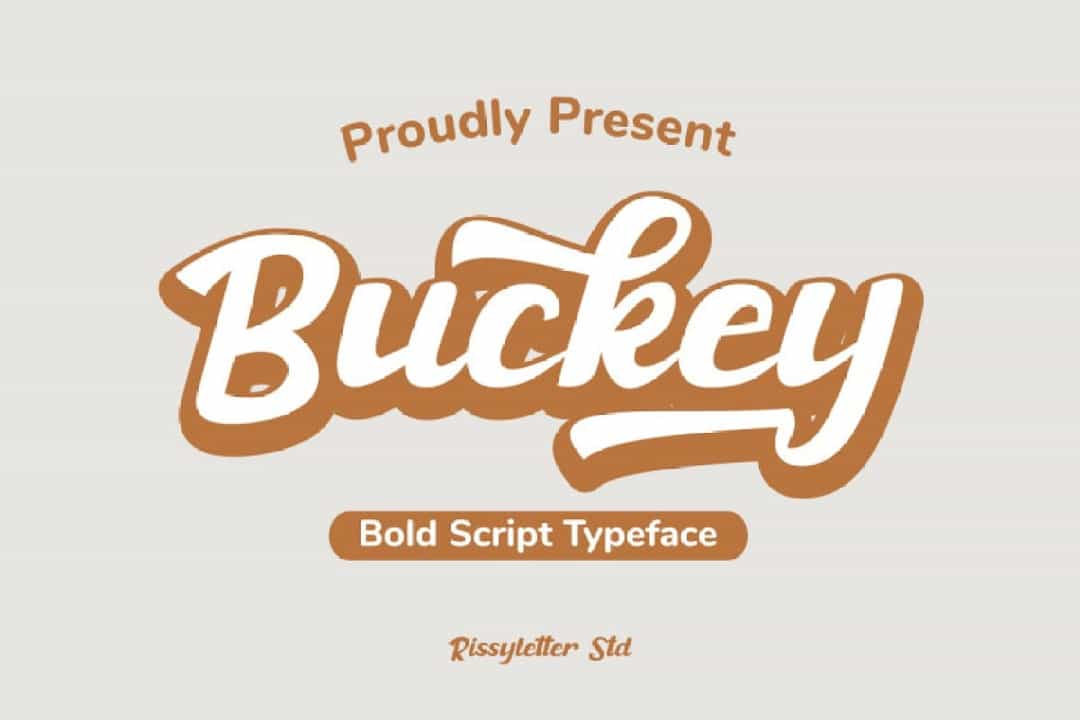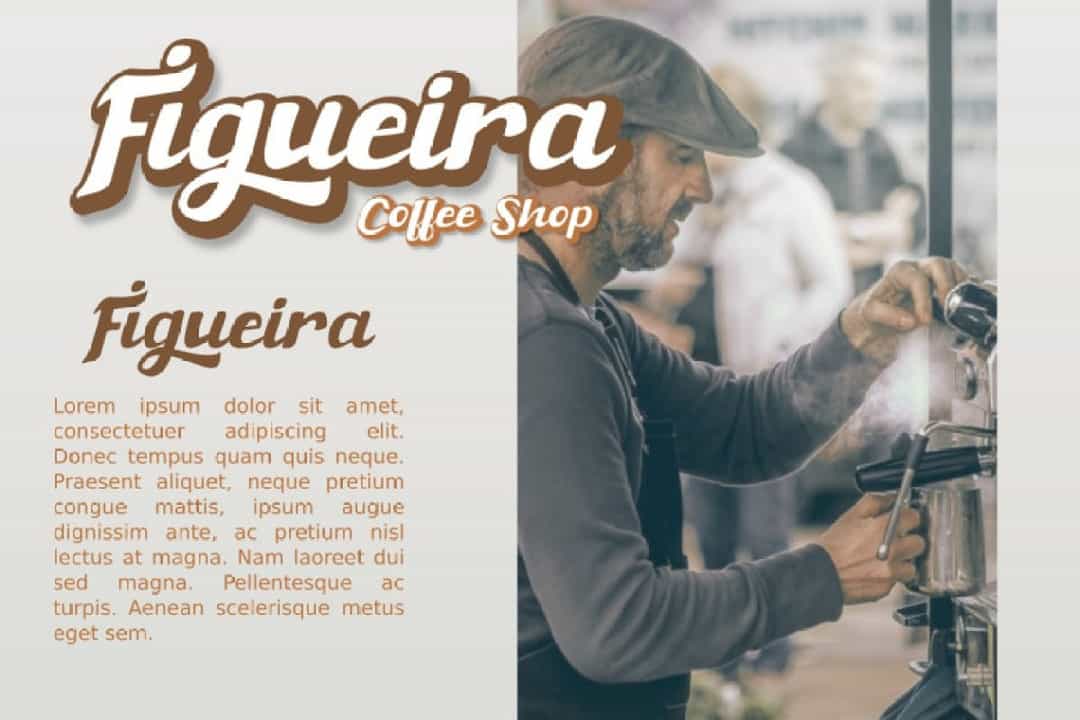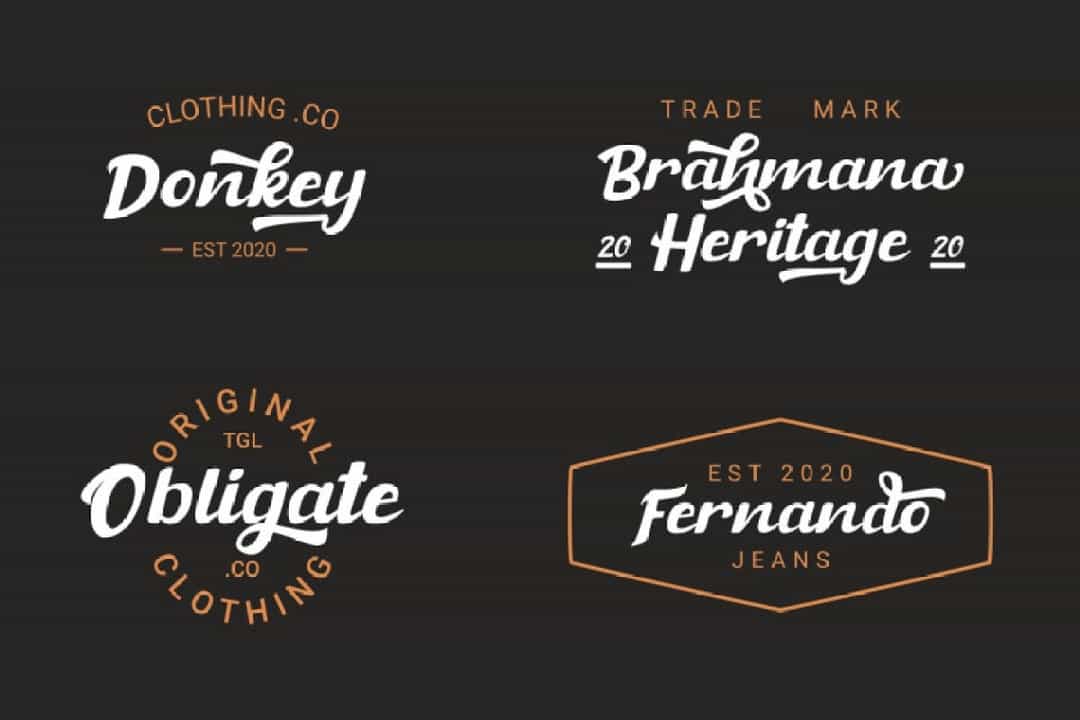
Buckey Bold Script Font enables the creation of lovely typography that is to some extent childlike and vintage, yet suitable for modern design purposes. It is suitable for logos and branding use, for weddings and social media posts, for advertisements and packaging of products, for invitation cards, photographs, label, children’s books, game titles and many more.